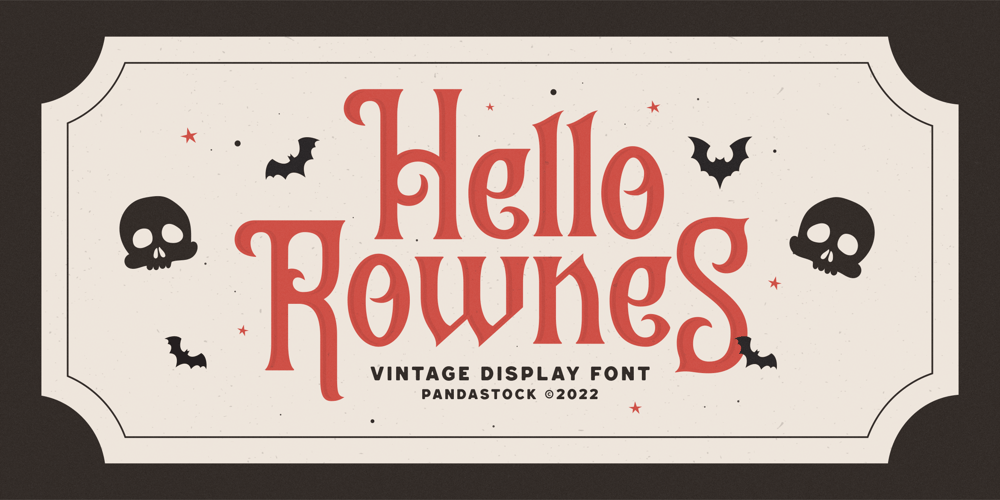
Hello Rownes Font Family was designed by Aulia Savira Putri and published by Pandastock. Hello Rownes contains 1 styles and family package options. Hello Rownes is vintage lettering with visual elegance, smooth curves, and beautiful ligatures clear, making your work look true and attractive.A very versatile font that works in both large and small sizes. This font is suitable for a wide variety of projects such as invitations, logos, branding, magazine, photography, card, product packaging, mugs, quotes, poster, labels, signatures, and more.A font that is perfect for all business sectors including personal projects, studio, corporate, creative agency, industrial, company, etc.